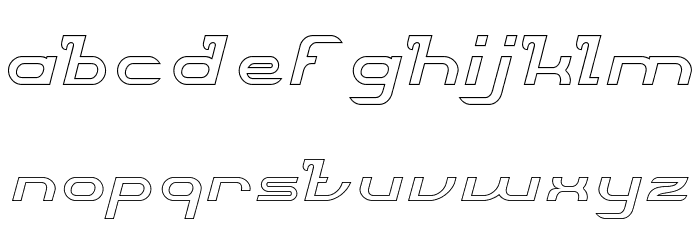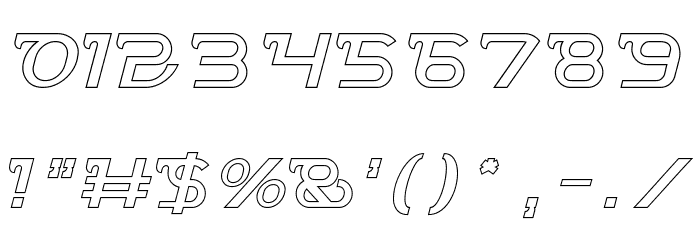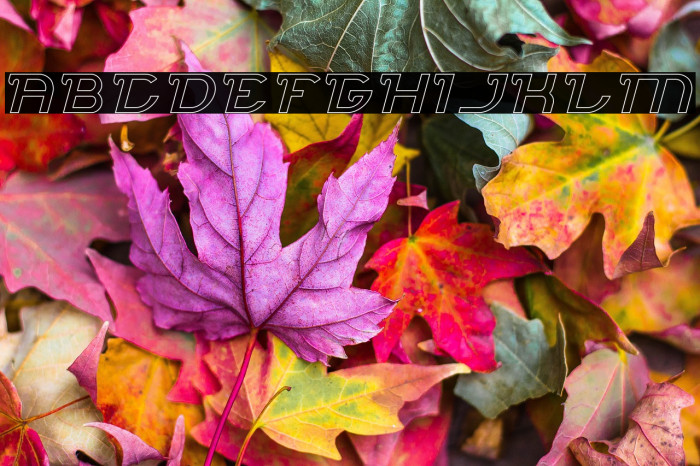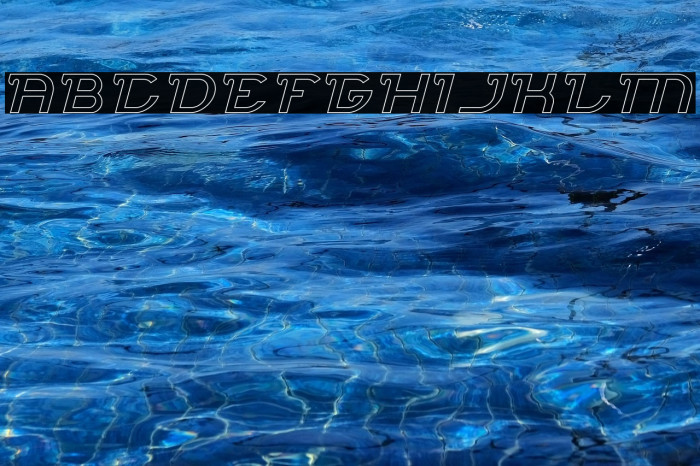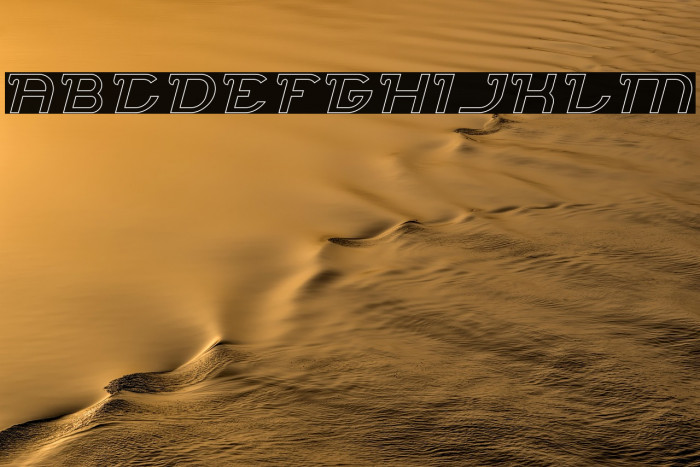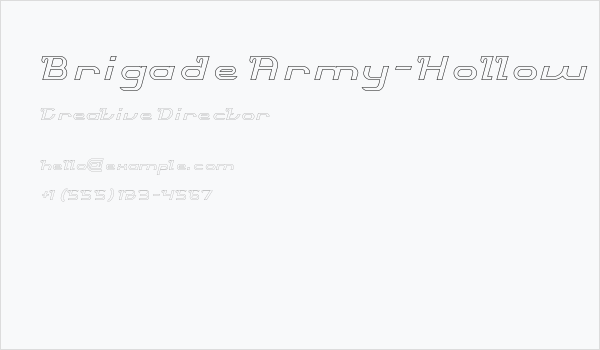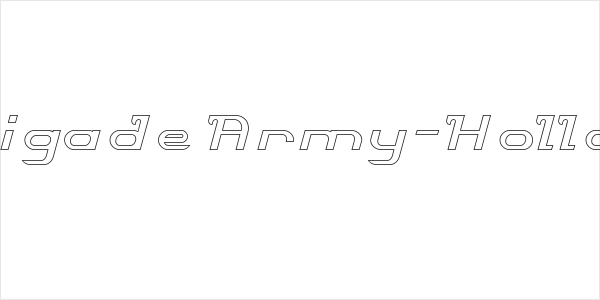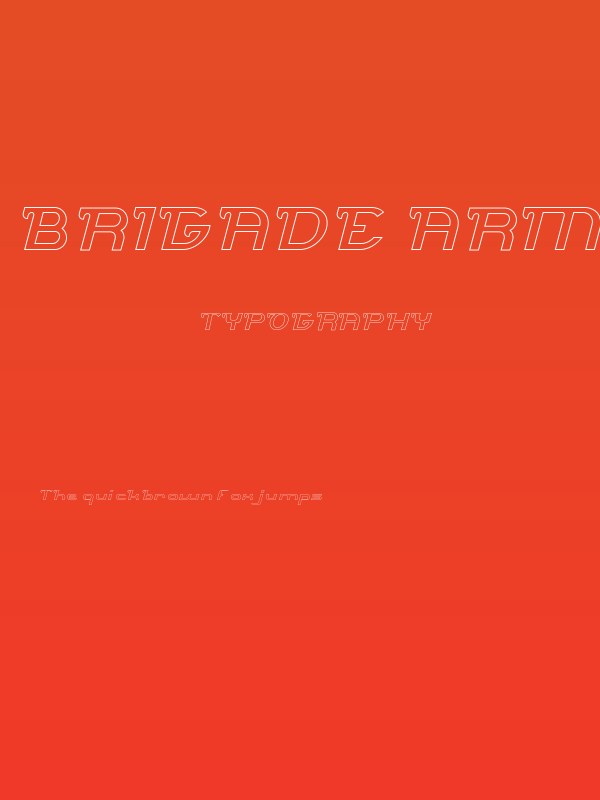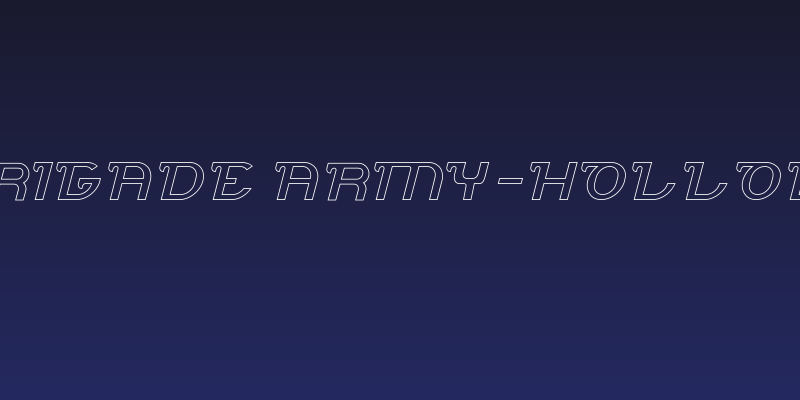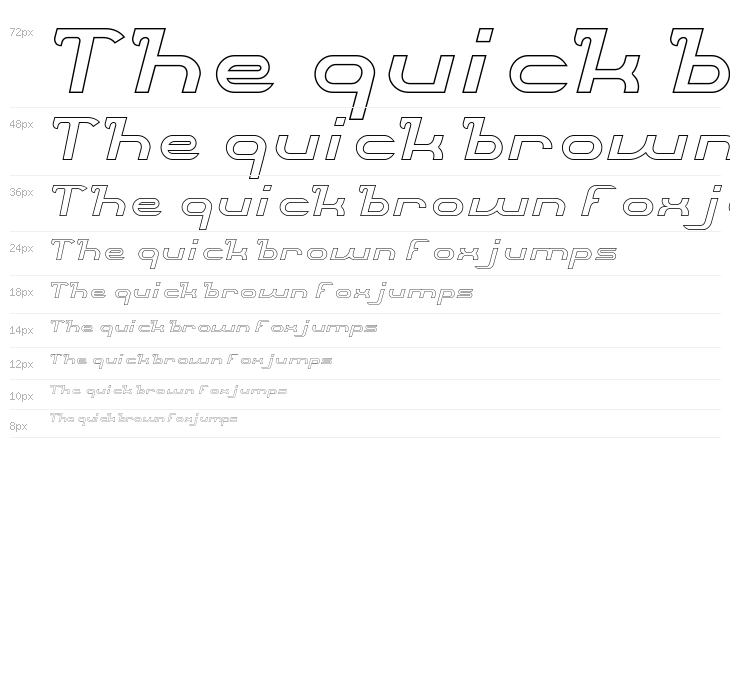
Brigade Army-Hollow Font
This font features a hollow, stencil-like design with a modern and structured appearance. Each character is outlined, giving it a distinct, open look that is both bold and eye-catching. The uppercase letters have a strong, angular form, while the lowercase letters maintain a consistent style with slightly softer curves. Numbers and special characters follow the same hollow design, ensuring uniformity across all glyphs. The font's unique style makes it suitable for projects that require a military or industrial aesthetic, adding a sense of strength and precision.
A hollow, stencil-like font with a modern, structured design.
- Font: Brigade Army-Hollow
- Proposed Projects: Ideal for military-themed designs, industrial branding, posters, and signage.